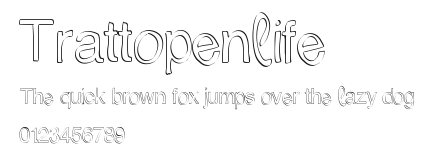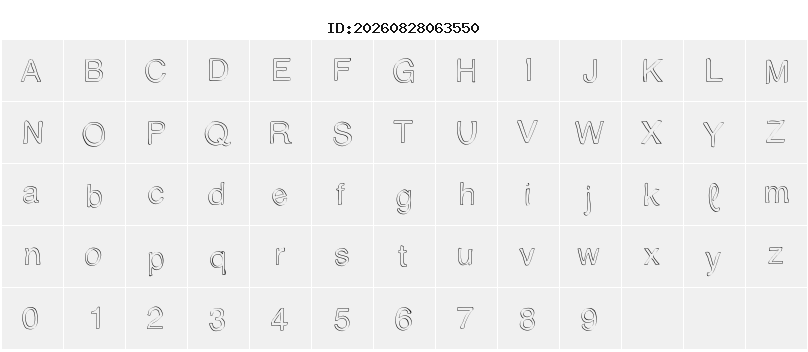
Trattopenlife Preview
• Font Name: Trattopenlife
• Full Font Name: Trattopenlife
• PostScript Name: Trattopenlife
• Character Count: 143
About Trattopenlife.ttf
Trattopenlife.ttf is a modern, elegant sans-serif font designed for ultimate readability and visual harmony. Perfect for branding, headlines, web design, and print materials.